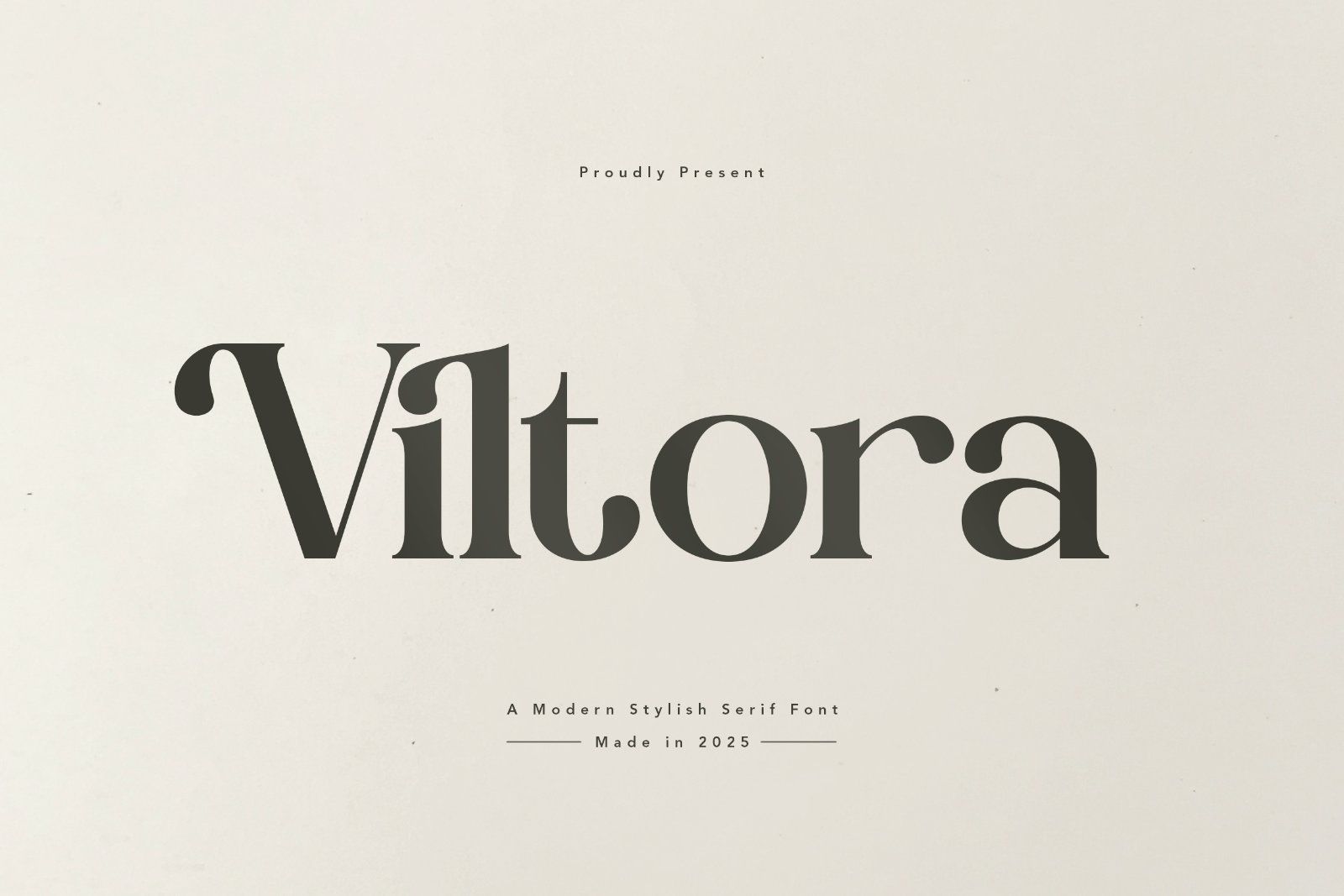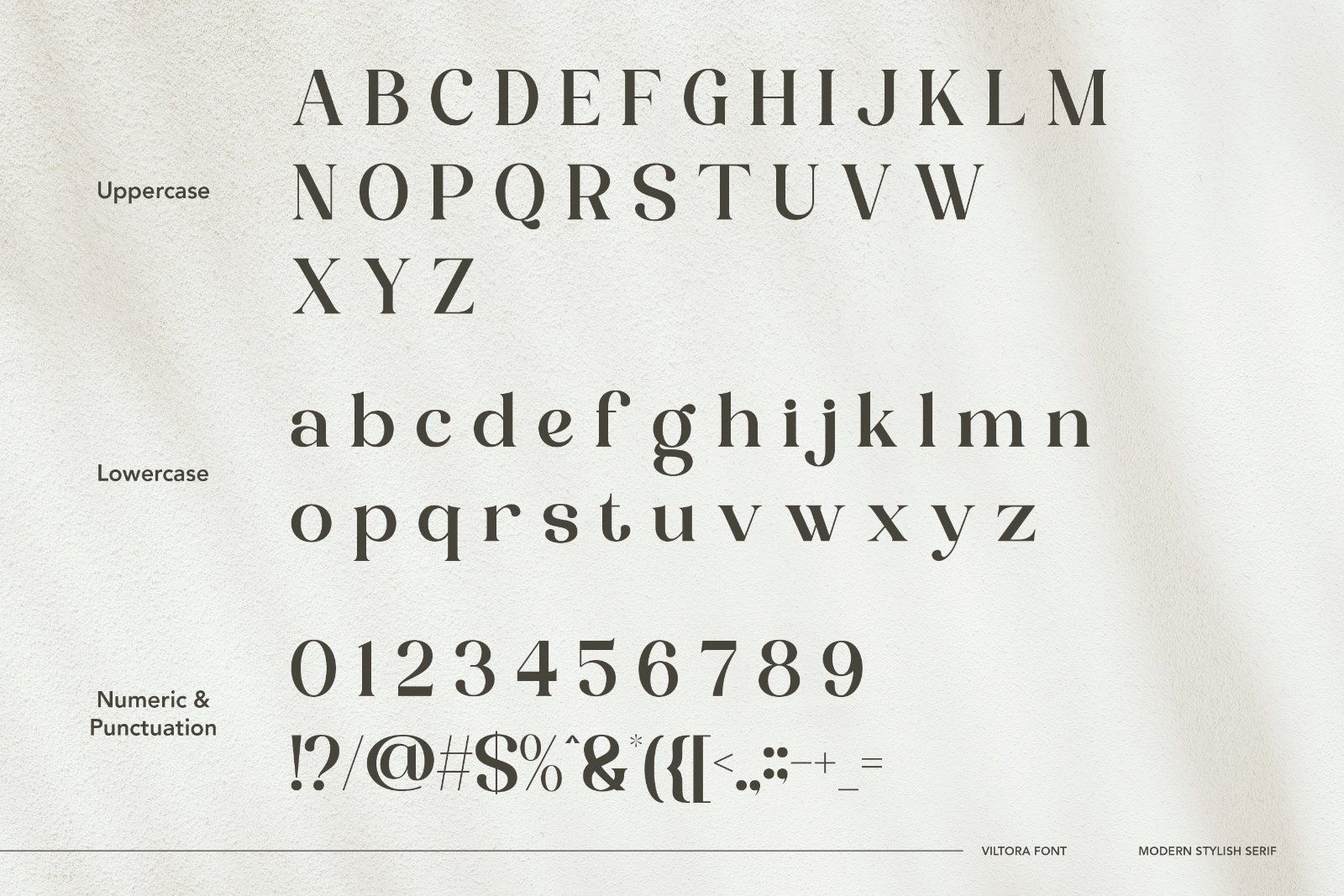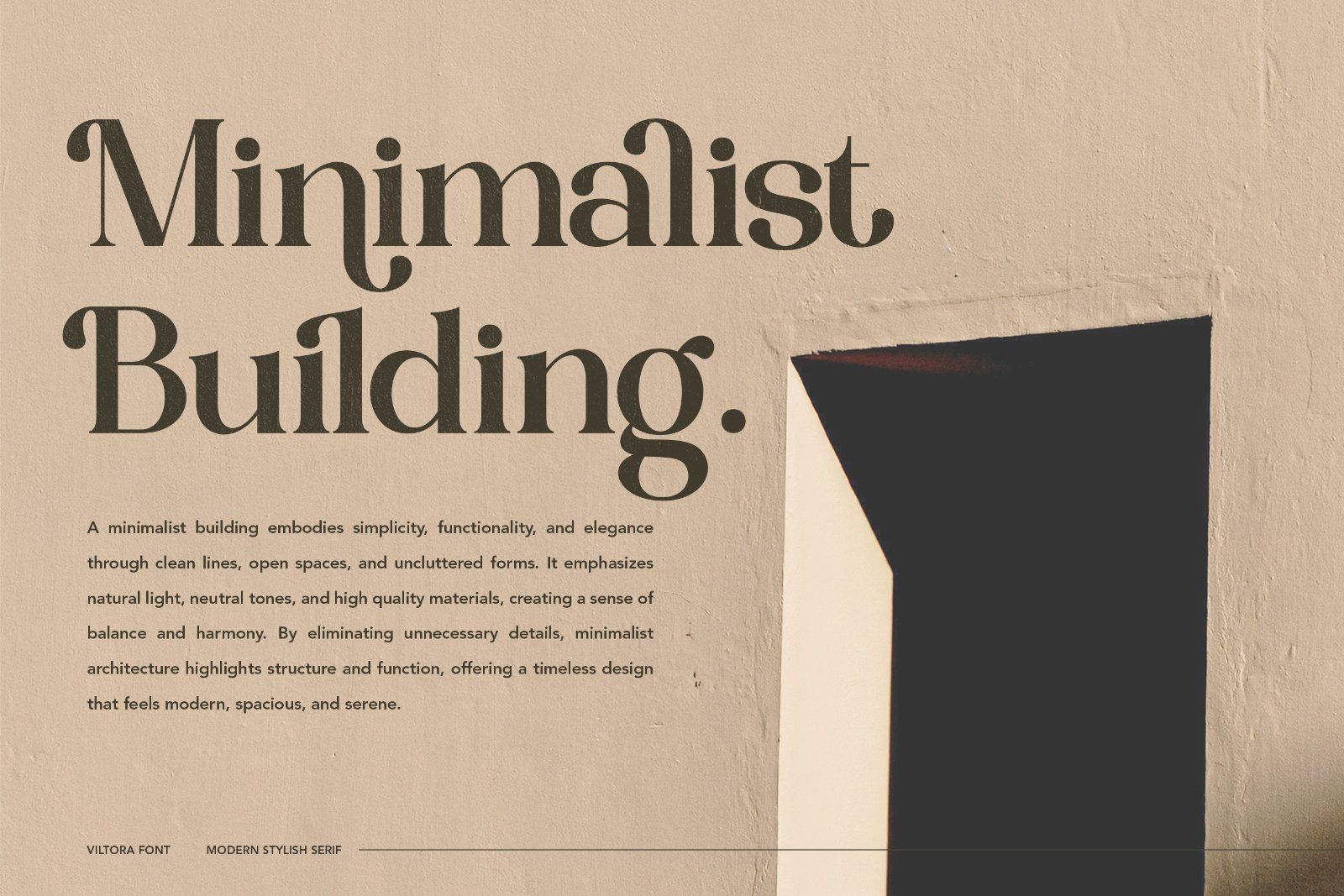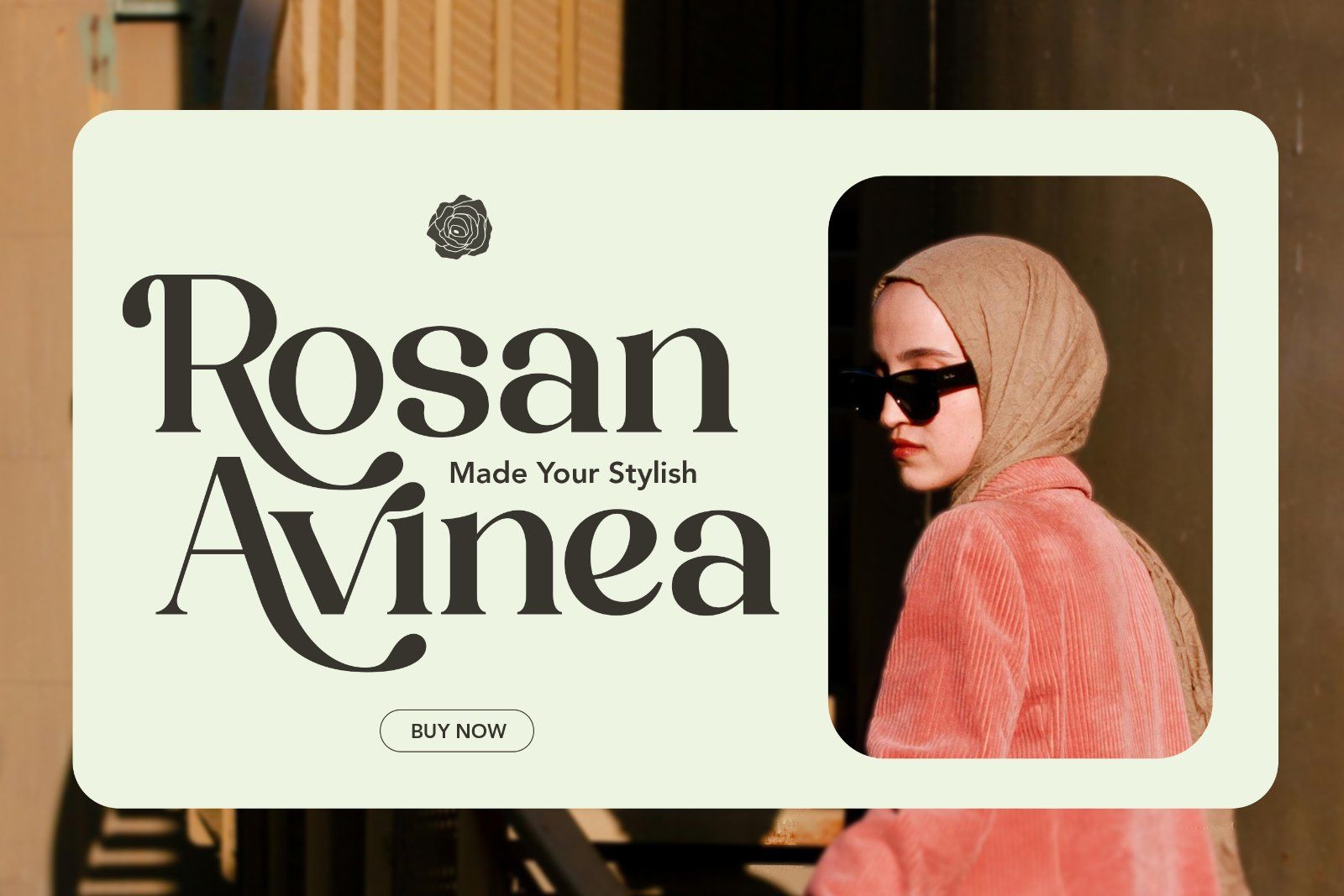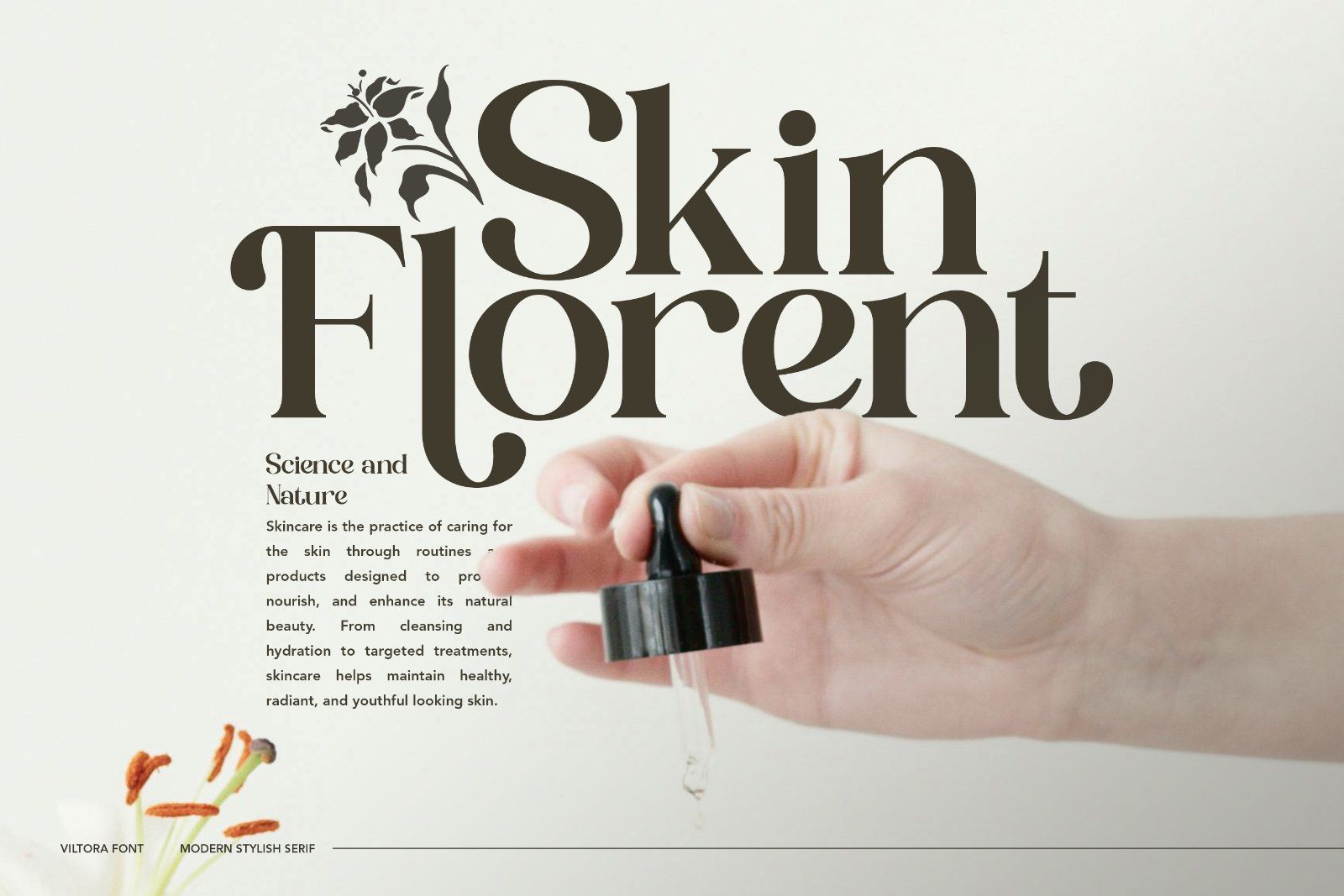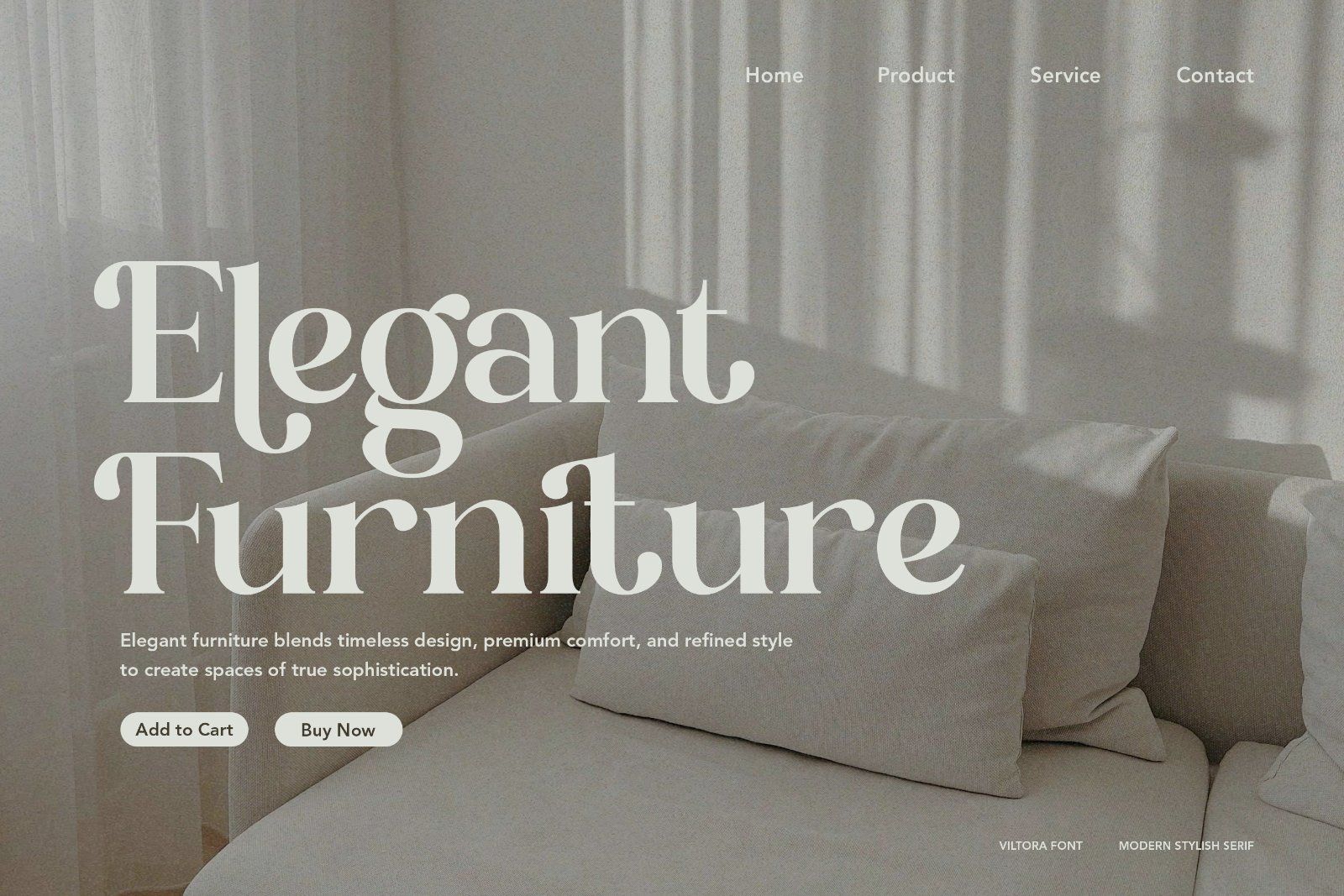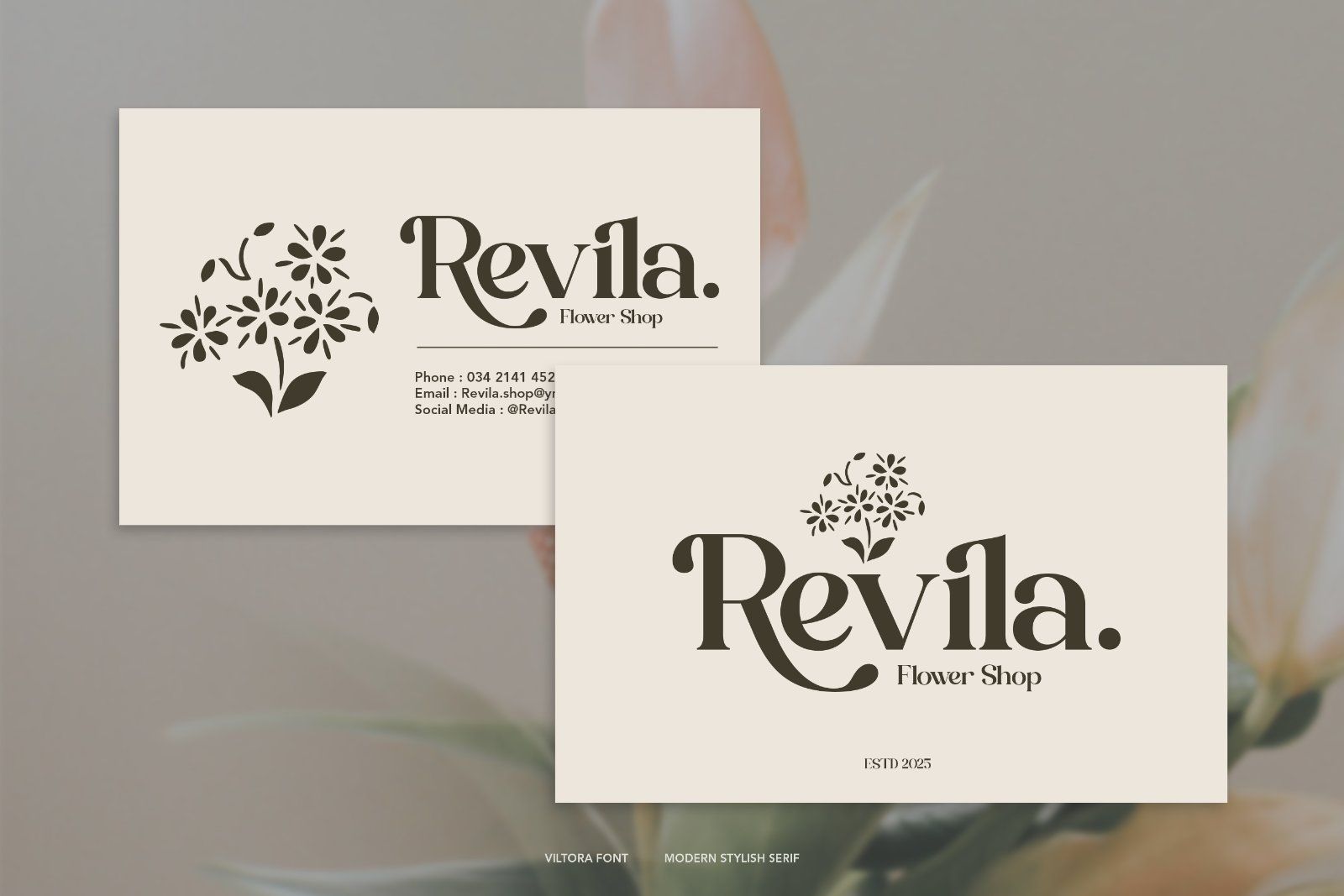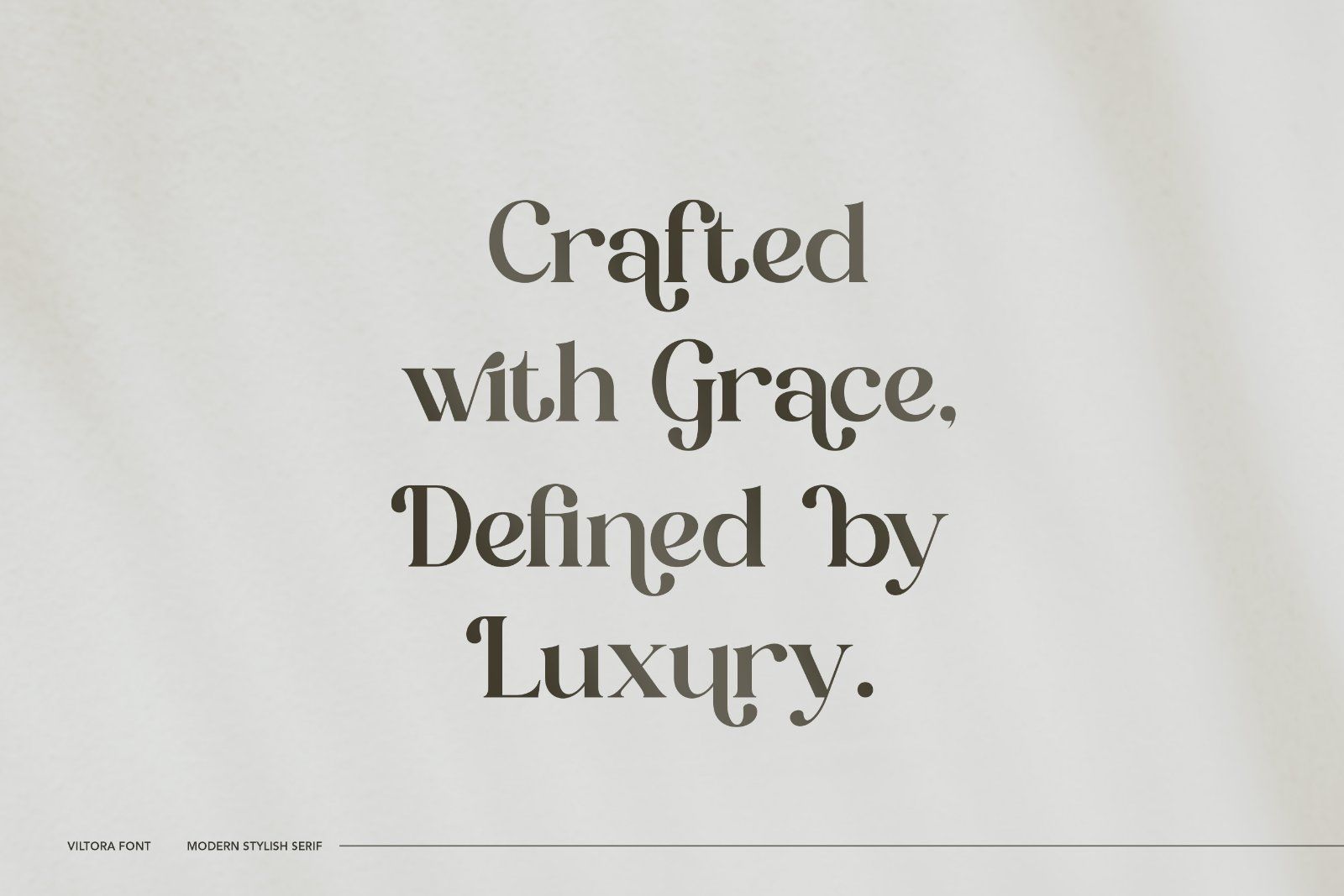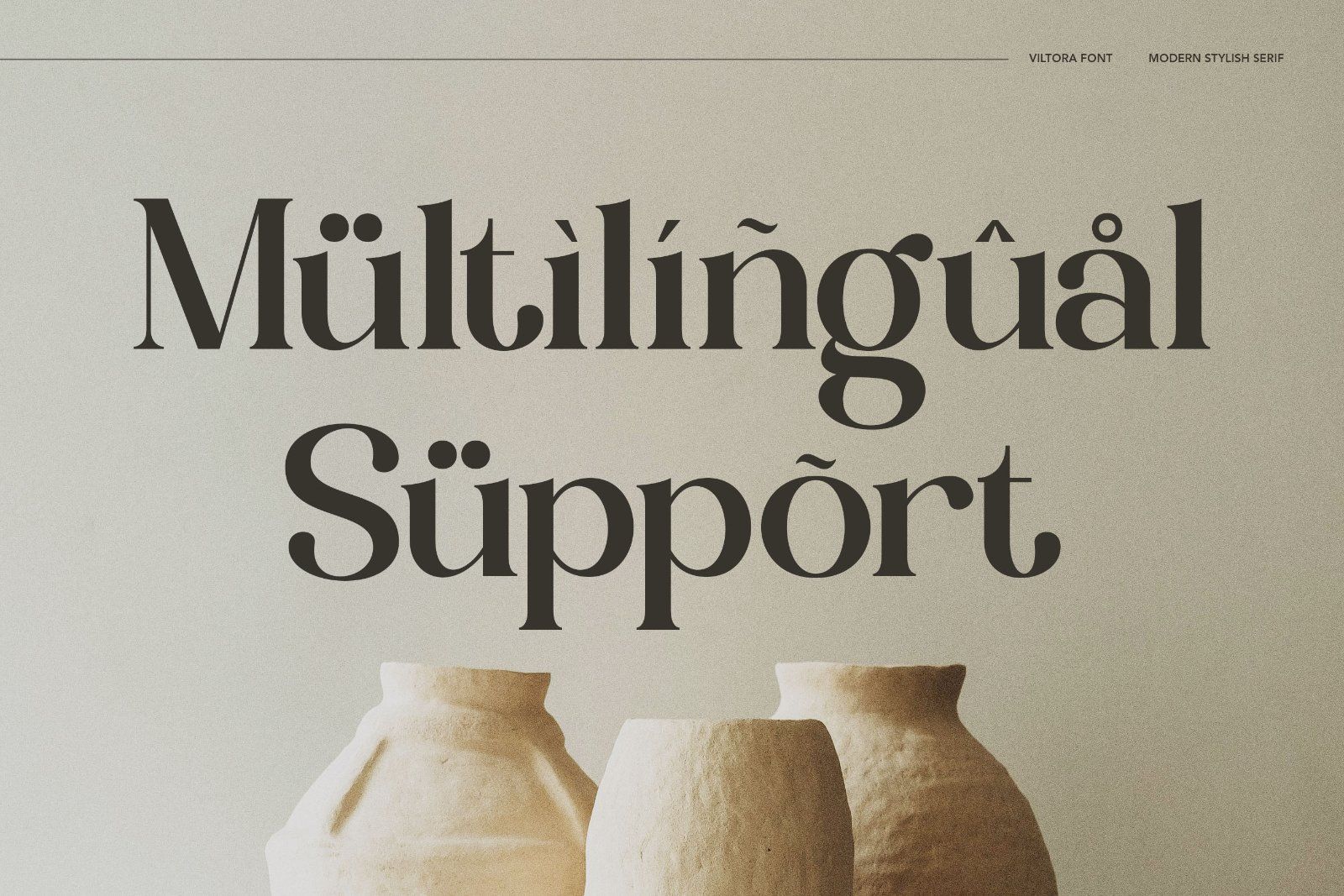
Viltora is a modern and stylish serif font that blends timeless elegance with a contemporary twist. Featuring refined curves, bold contrasts, and a touch of artistic flair, this typeface exudes sophistication and character. Perfect for logos, branding, editorial designs, and high-end packaging, Viltora delivers a premium and stylish presence to any project.
• Uppercase alphabet A-Z
• Lowercase alphabet a-z
• Numbers 0-9
• Some punctuation
• Some Alternates and Ligatures